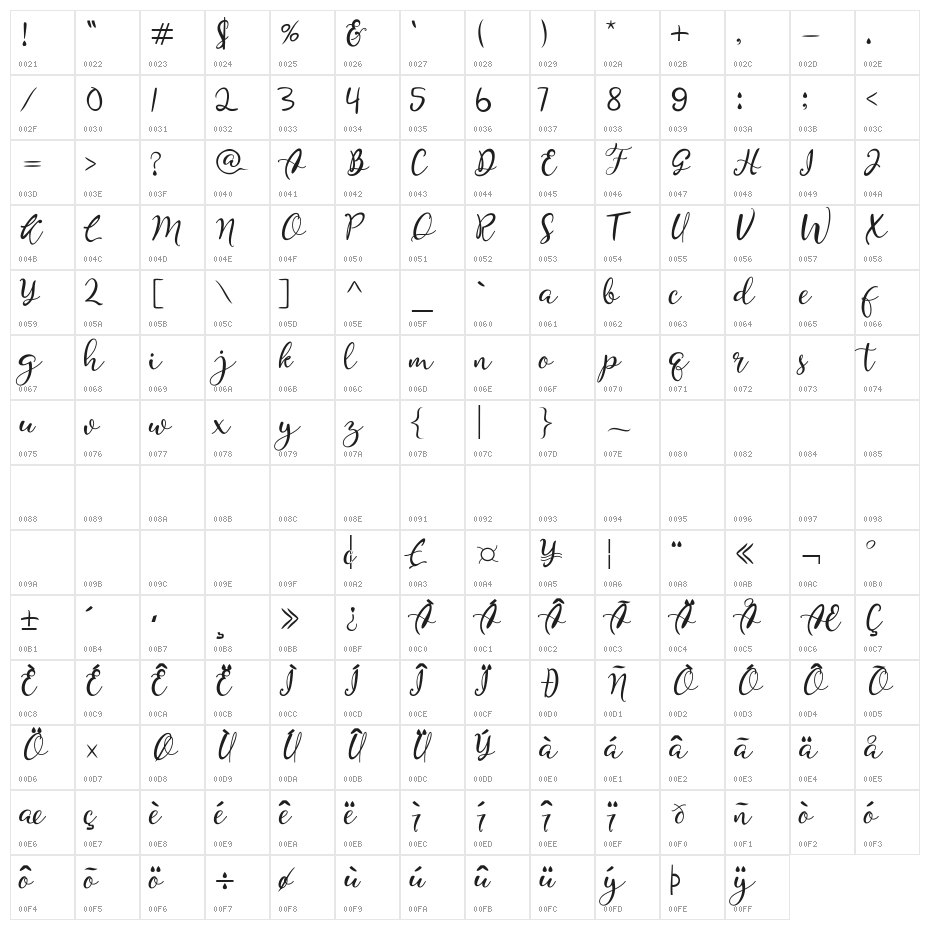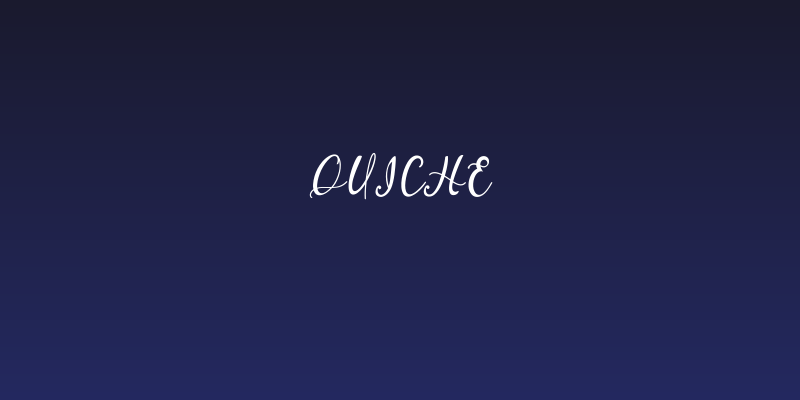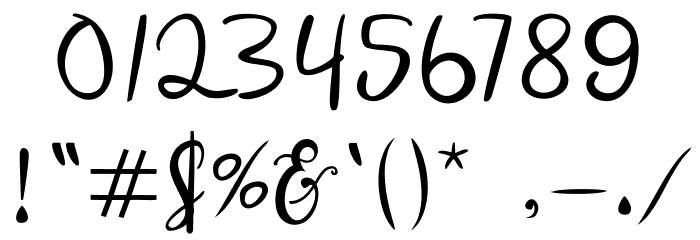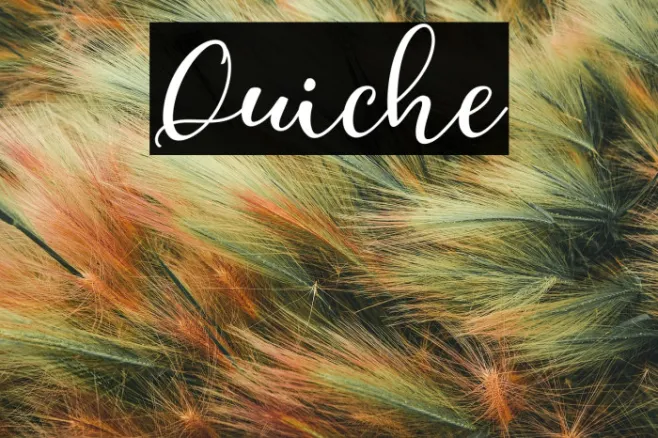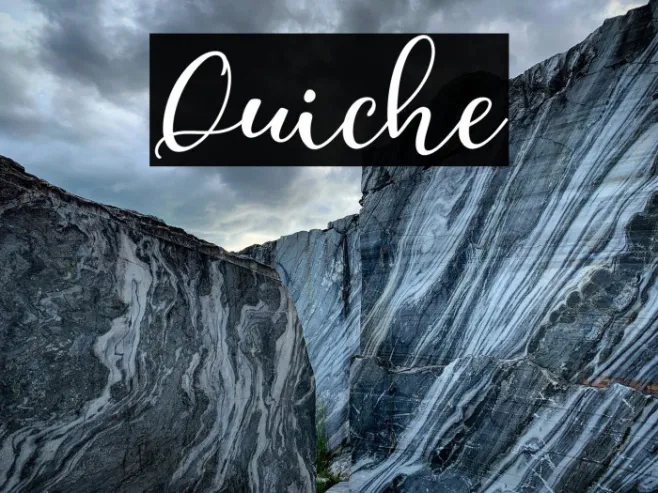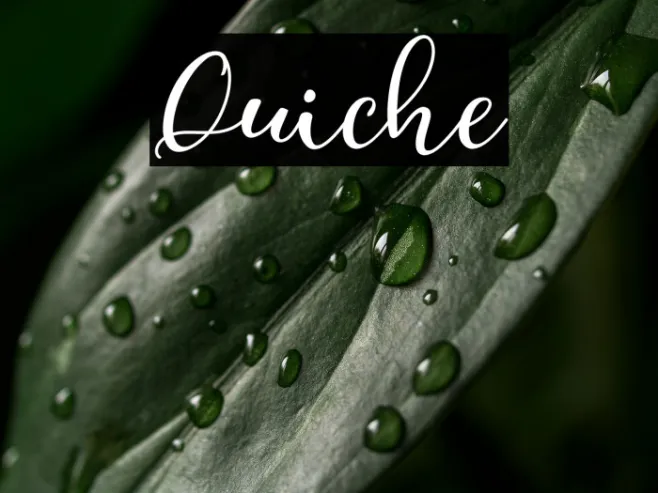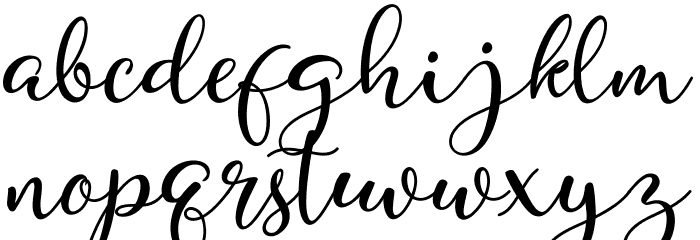
Quiche Font
Quiche Description
This elegant script font features a flowing, cursive style with a modern twist. The uppercase letters are characterized by their sweeping curves and intricate loops, giving them a sophisticated and graceful appearance. The lowercase letters maintain a consistent flow, with smooth connections between characters that enhance readability. The numerals are stylish and complement the overall aesthetic, while the special characters add a touch of flair. This font's design is perfect for adding a personal and artistic touch to any project.